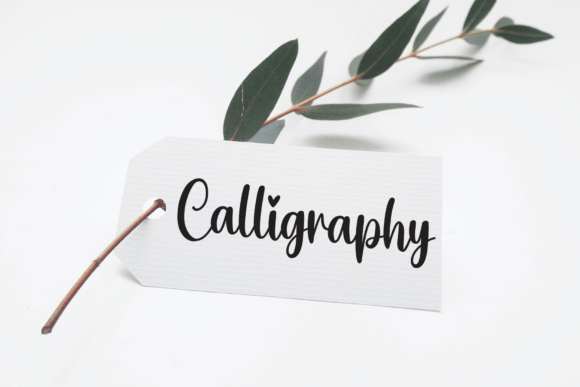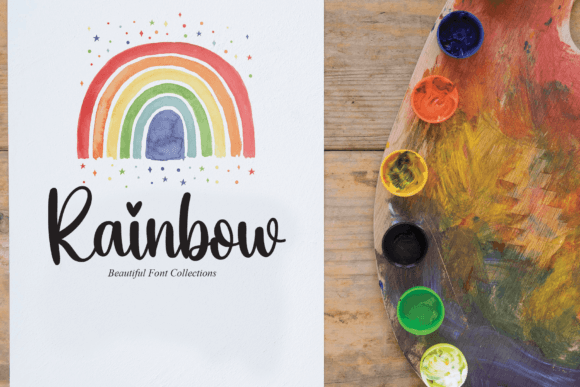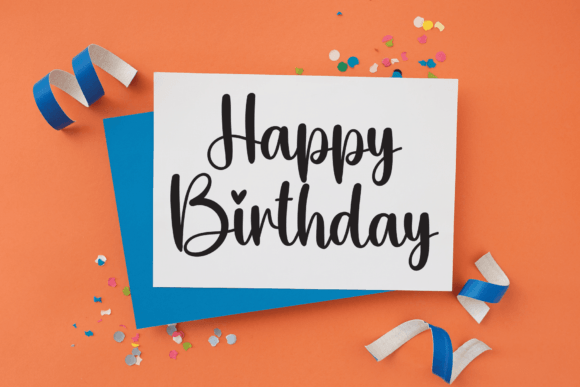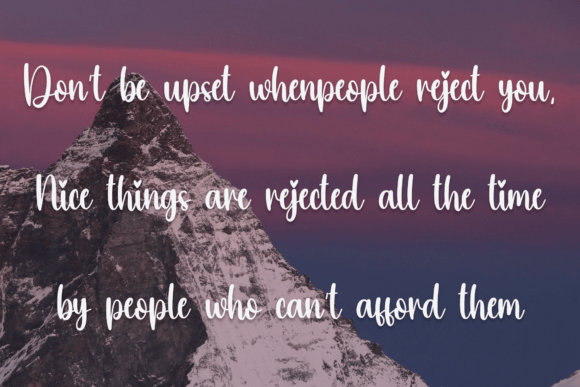
About Simple Font
“Simple” is an elegant and dainty handwritten font characterized by its sweet and delicate swashes. This font offers an original and charming look that appeals to a wide range of creative projects, making it perfect for various applications such as letterheads, titles, and stationery.
The font’s elegance lies in its graceful letterforms and intricate swashes. Its delicate strokes and sophisticated curves create a refined and tasteful appearance, making it ideal for projects that require a touch of sophistication and femininity. Whether you’re designing invitations, crafting elegant letterheads, or working on stylish titles, “Simple” adds a sense of grace and beauty to your text.
One of the key features of “Simple” is its ability to enhance the visual appeal of your designs. The font’s dainty swashes add a decorative element that elevates the overall aesthetic of your text. Whether used sparingly as accents or incorporated into entire words, these swashes bring a sense of delicacy and charm to your typography.
By choosing “Simple” for your creative projects, you’re infusing them with an elegant and refined vibe. Its sophisticated appearance and sweet swashes create a visually pleasing experience, making your designs stand out. Whether you’re a graphic designer, a stationery enthusiast, or an individual working on personal projects, “Simple” offers you an elegant handwritten font to enhance your creative endeavors and add a touch of sophistication to your crafty ideas.